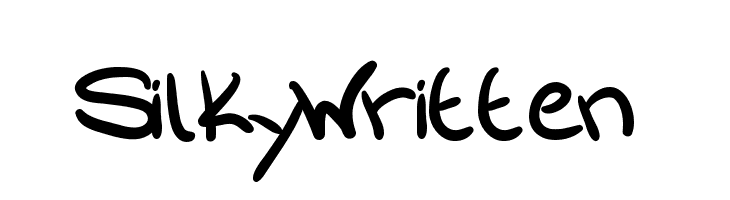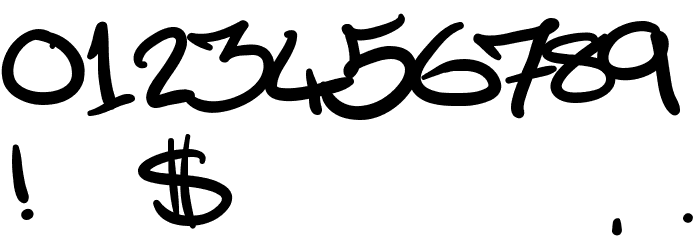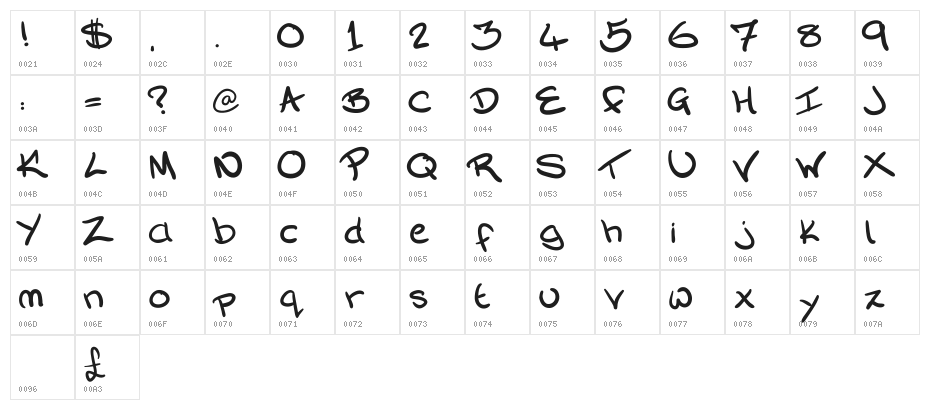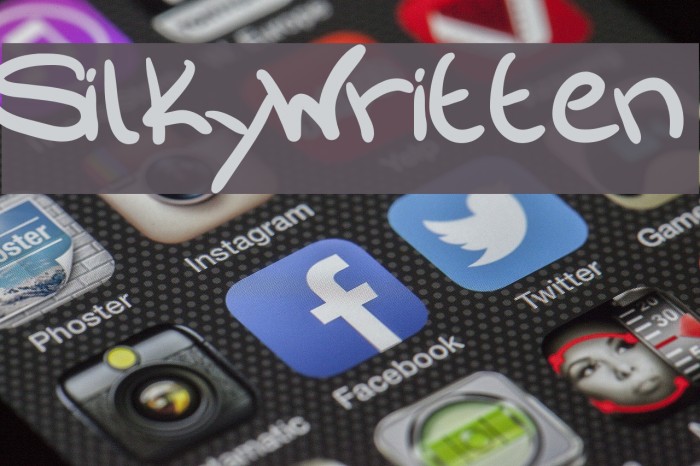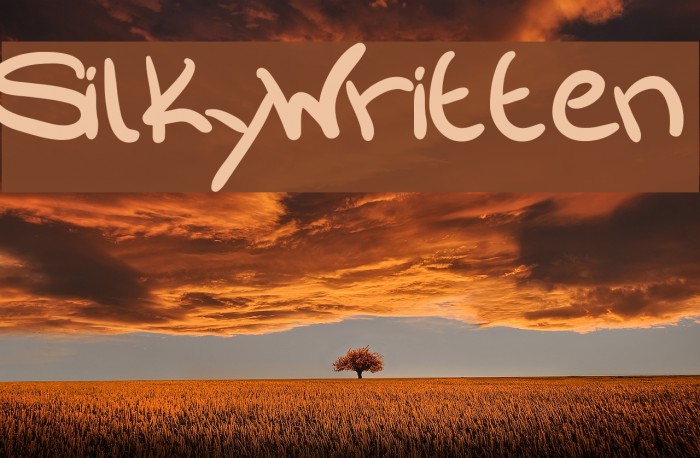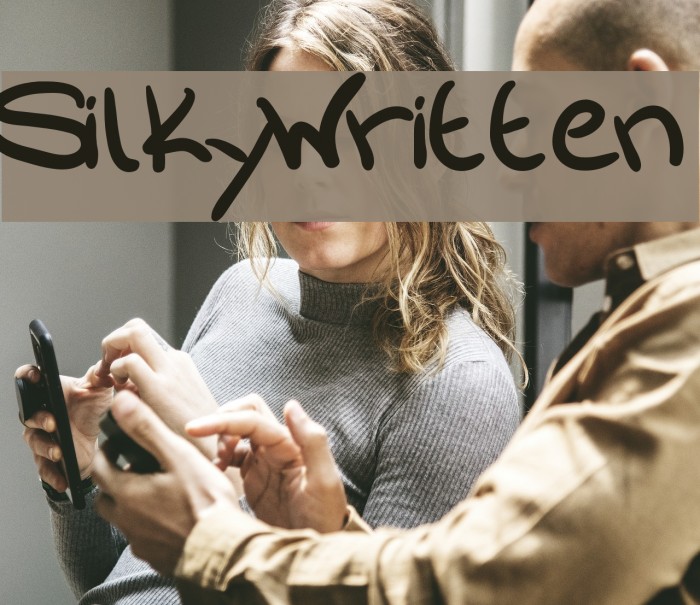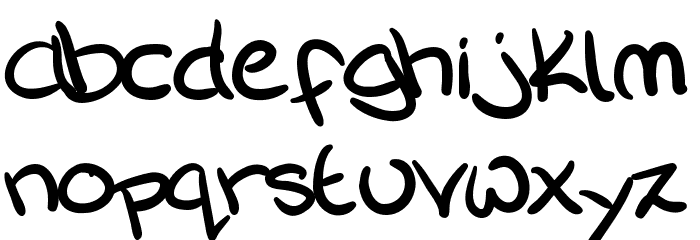
SilkyWritten Font
SilkyWritten Description
This font exudes a playful and energetic vibe with its bold, handwritten style. The characters are crafted with a fluid, continuous stroke that gives a sense of movement and dynamism. The uppercase and lowercase letters maintain a consistent style, with rounded edges and a slightly irregular baseline that adds to the casual, informal feel. The numbers and special characters follow the same design principles, ensuring a cohesive look across all elements. This font is perfect for projects that require a personal touch or a sense of spontaneity.
| Overall Style | Playful, Casual |
| Proposed Projects | Ideal for greeting cards, children's books, playful branding, and social media graphics. |